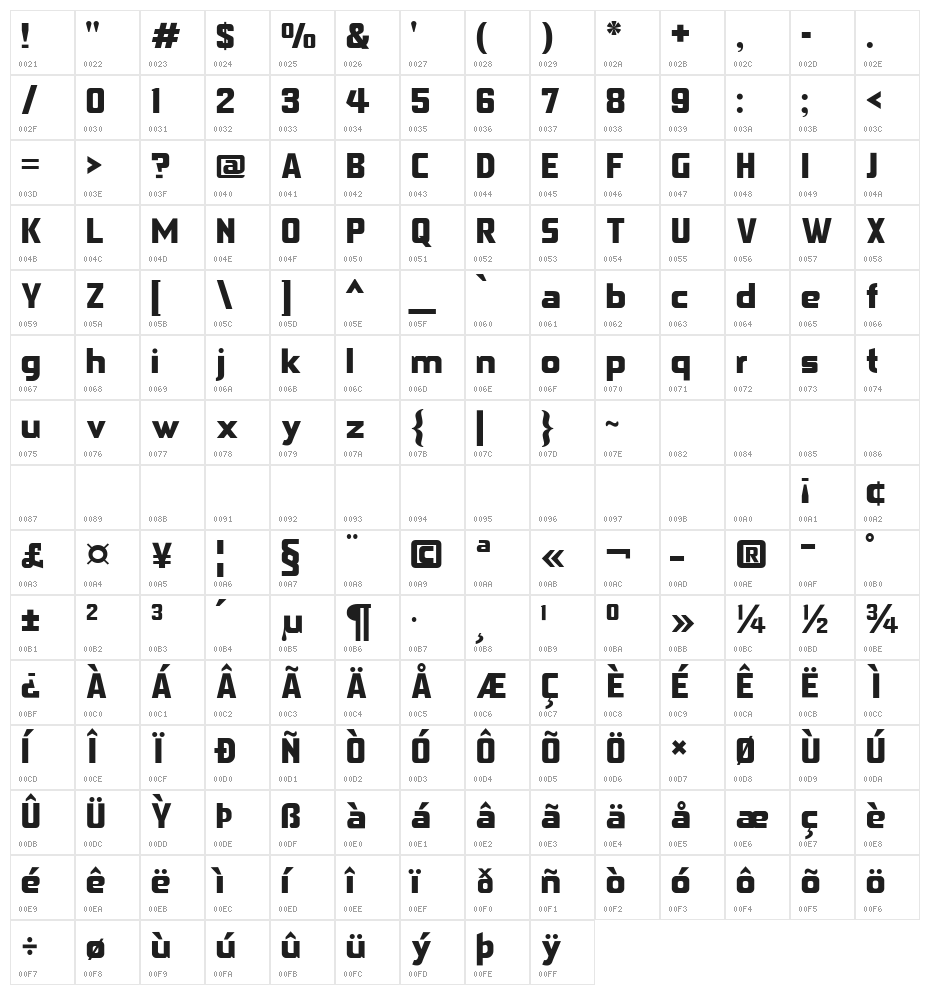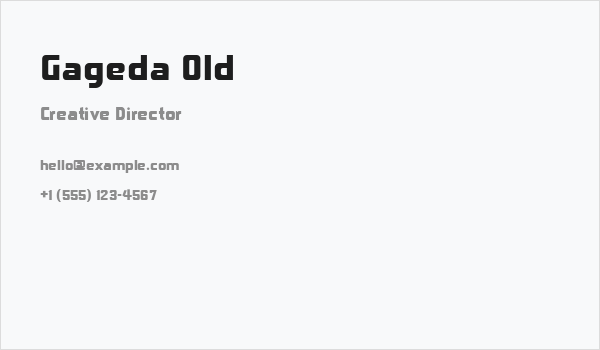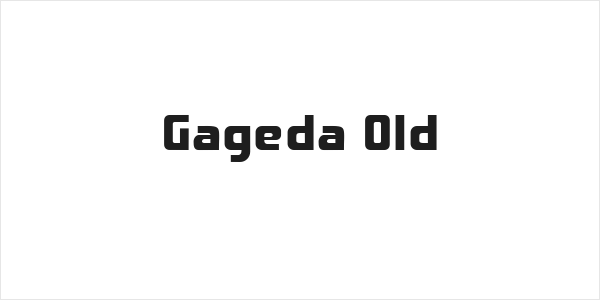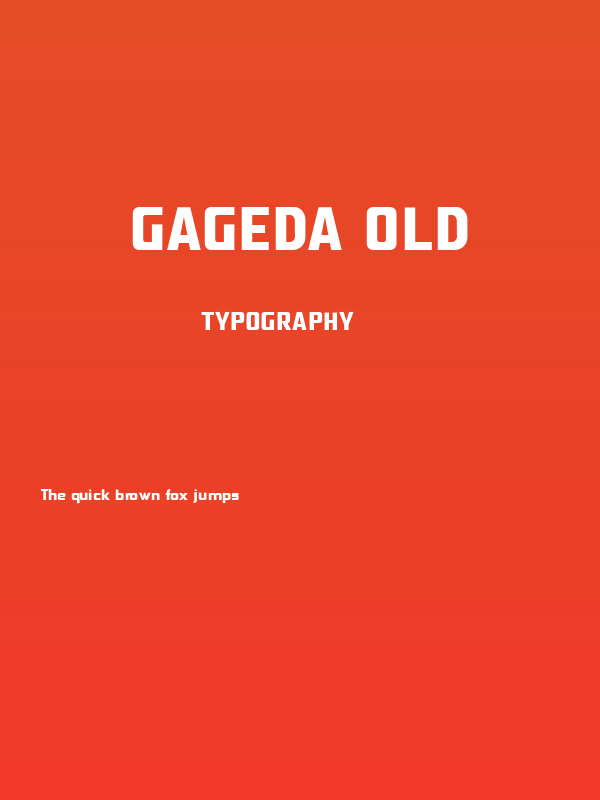
Gageda Old Font
Gageda Old Description
This font features bold, geometric letterforms with a strong presence. The uppercase letters are uniform and structured, while the lowercase letters maintain a consistent style, offering a modern and robust appearance. The numerals are clear and legible, matching the boldness of the alphabetic characters. Special characters are well-defined, enhancing the font's versatility. The overall design is clean and impactful, making it suitable for various design applications.
| Proposed Projects | Ideal for branding, headlines, posters, and digital media where a strong visual impact is desired. |